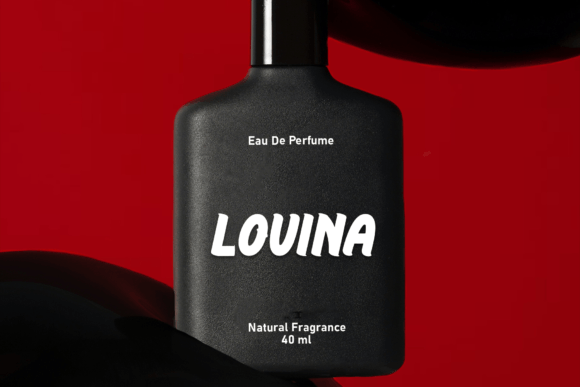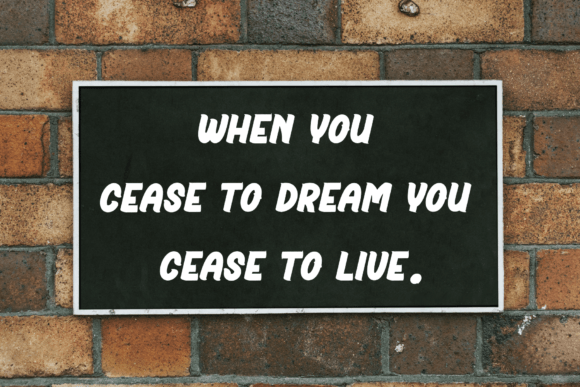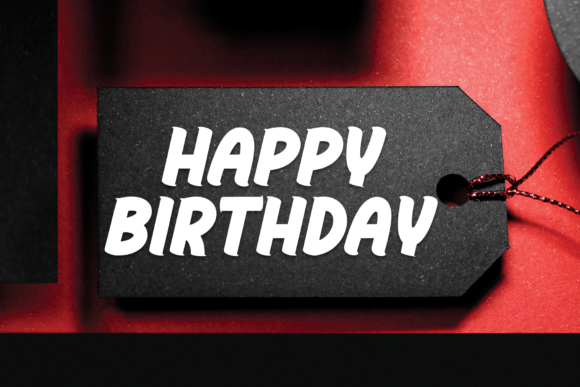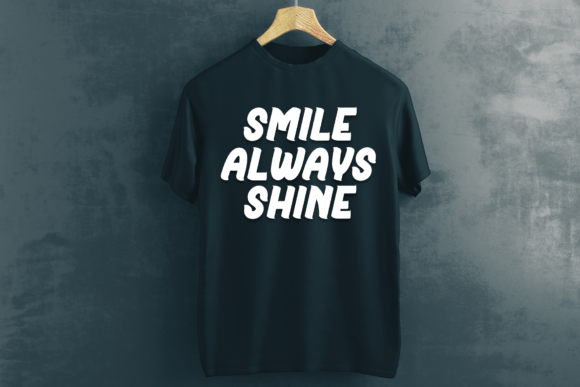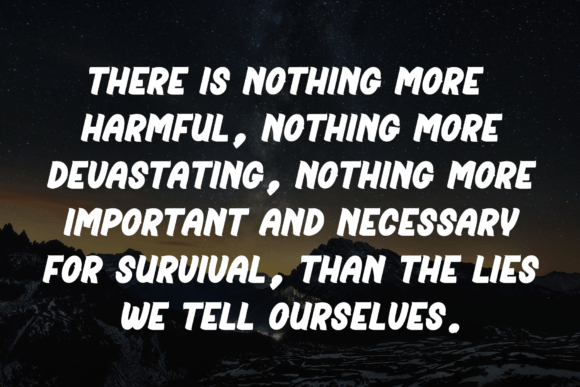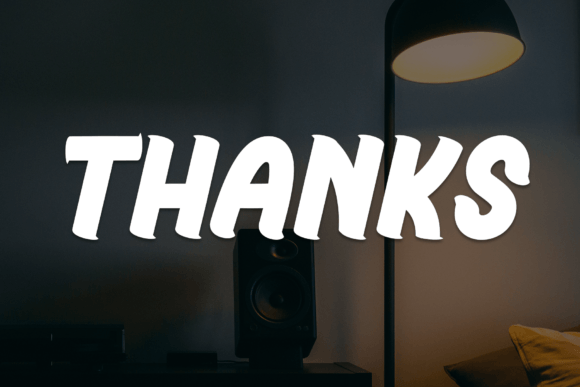
Introduction to Night Lamp Font Font
Fonts play a crucial role in design, and the Night Lamp Font font is a typeface that brings both character and versatility to any project. Whether you’re working on a branding project, a website, or a print design, the Night Lamp Font font offers a unique style that can elevate your work.
Night Lamp is a sweet and friendly handwritten font.
Key Features of Night Lamp Font Font
Why Choose Night Lamp Font Font?
The Night Lamp Font font is more than just a typeface – it’s a design tool that helps you communicate your message with style and clarity. Its unique character set and versatile design make it suitable for a wide range of applications, from elegant invitations to bold headlines.
With its carefully crafted letterforms and balanced proportions, the Night Lamp Font font ensures readability and visual appeal across all mediums.
What makes Night Lamp Font font special?
The Night Lamp Font font stands out with its unique design, exceptional readability, and versatility across various design applications.